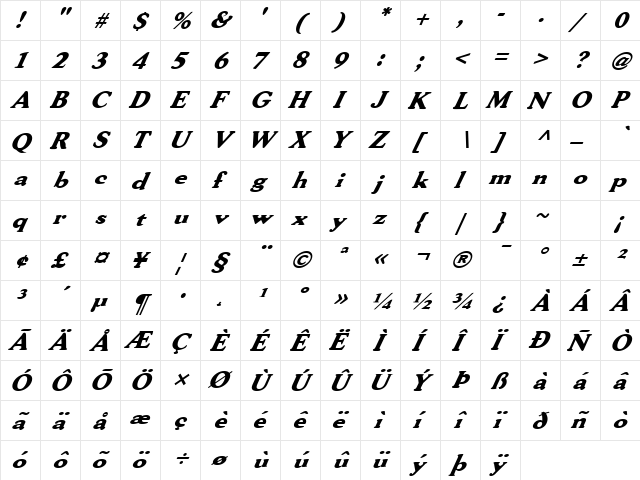
FZ ROMAN 30 ITALIC Normal
Design Context for FZ ROMAN 30 ITALIC Typeface
FZ ROMAN 30 ITALIC is a composed and adaptable typeface that performs quietly and consistently across a wide range of design contexts. Its italic angle brings a sense of urgency and motion to the letterforms.
Pro Tip: Try FZ ROMAN 30 ITALIC for annotation and caption copy alongside an upright companion — the contrast in angle creates a dynamic but ordered typographic system.